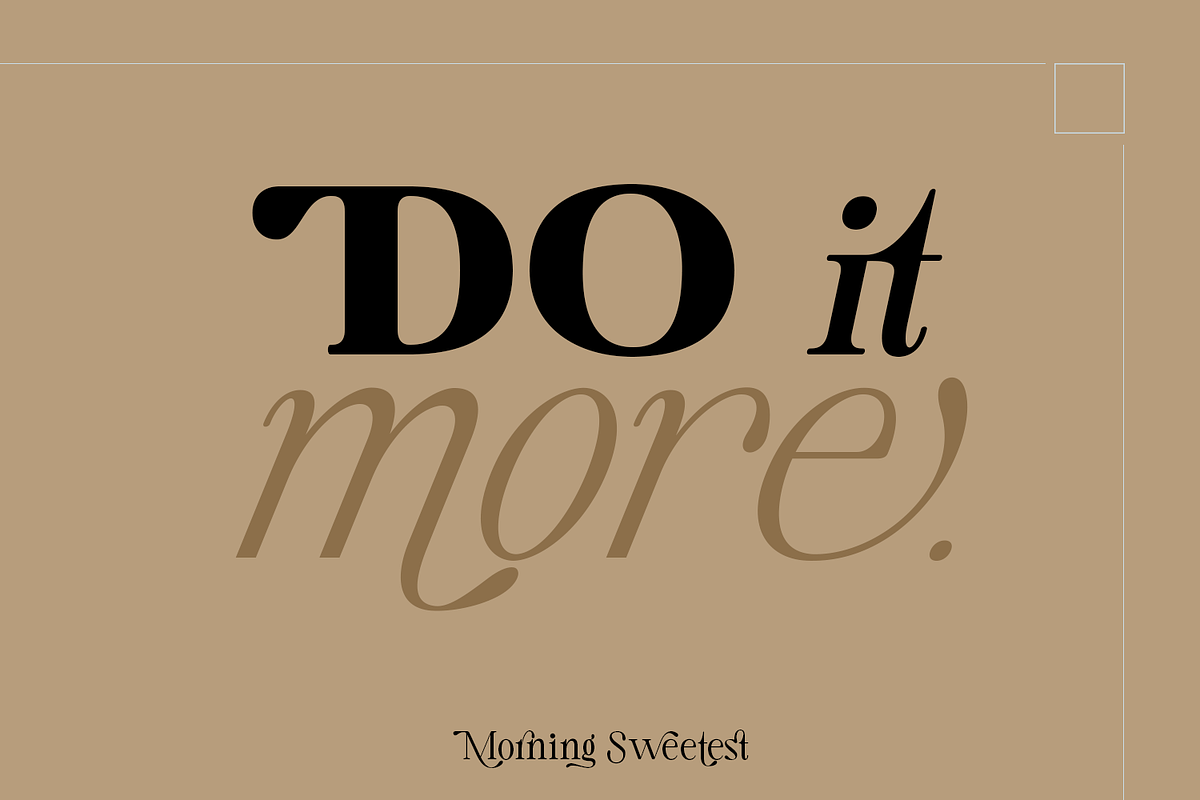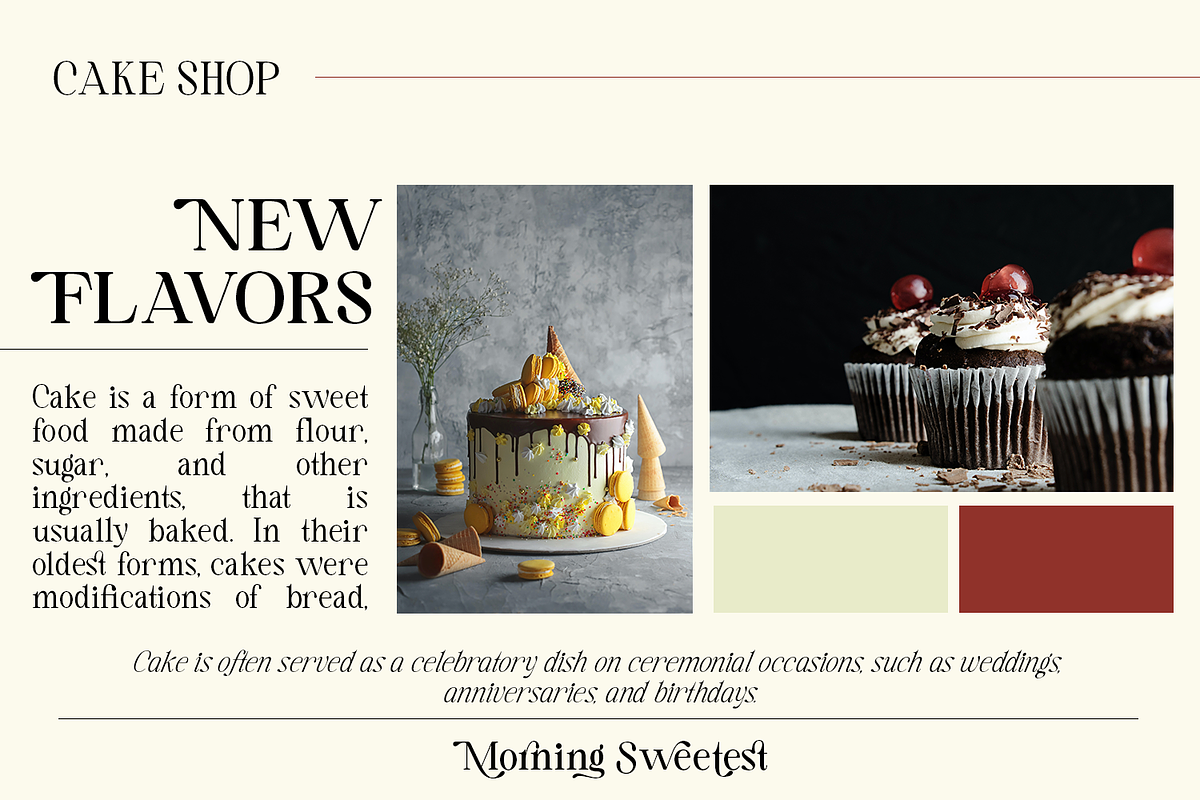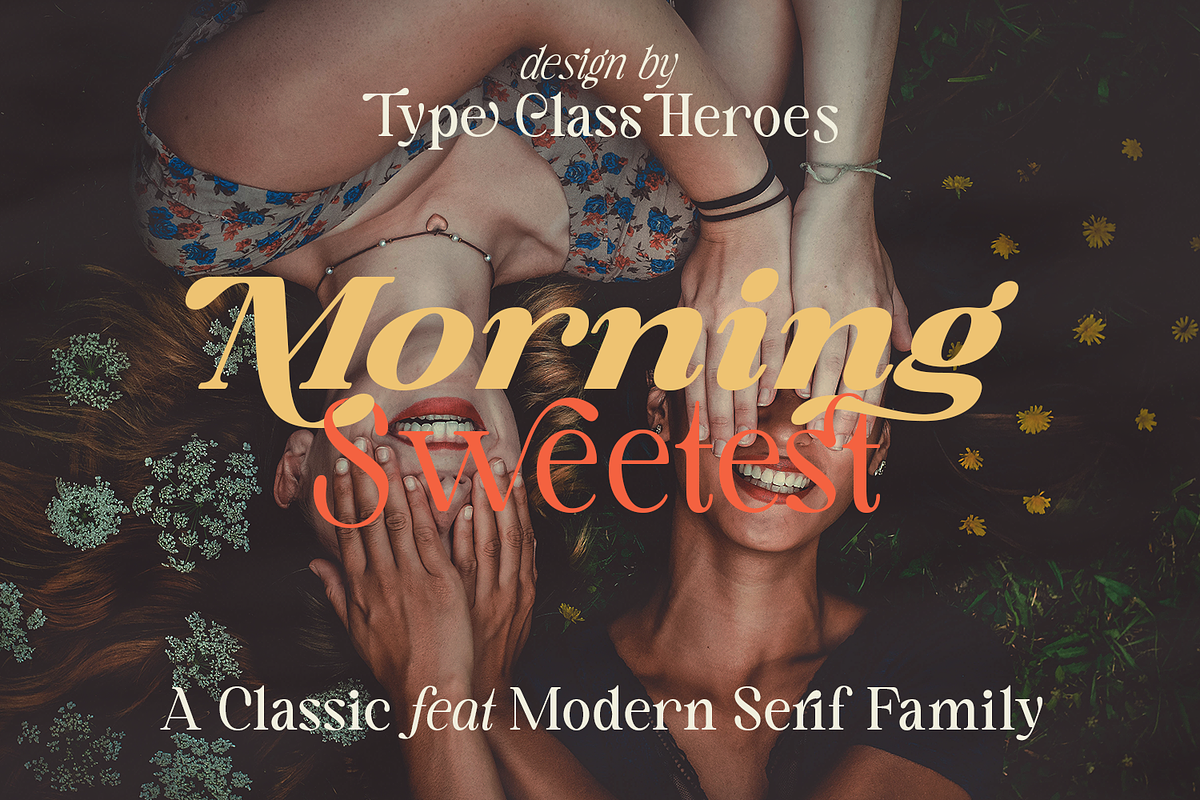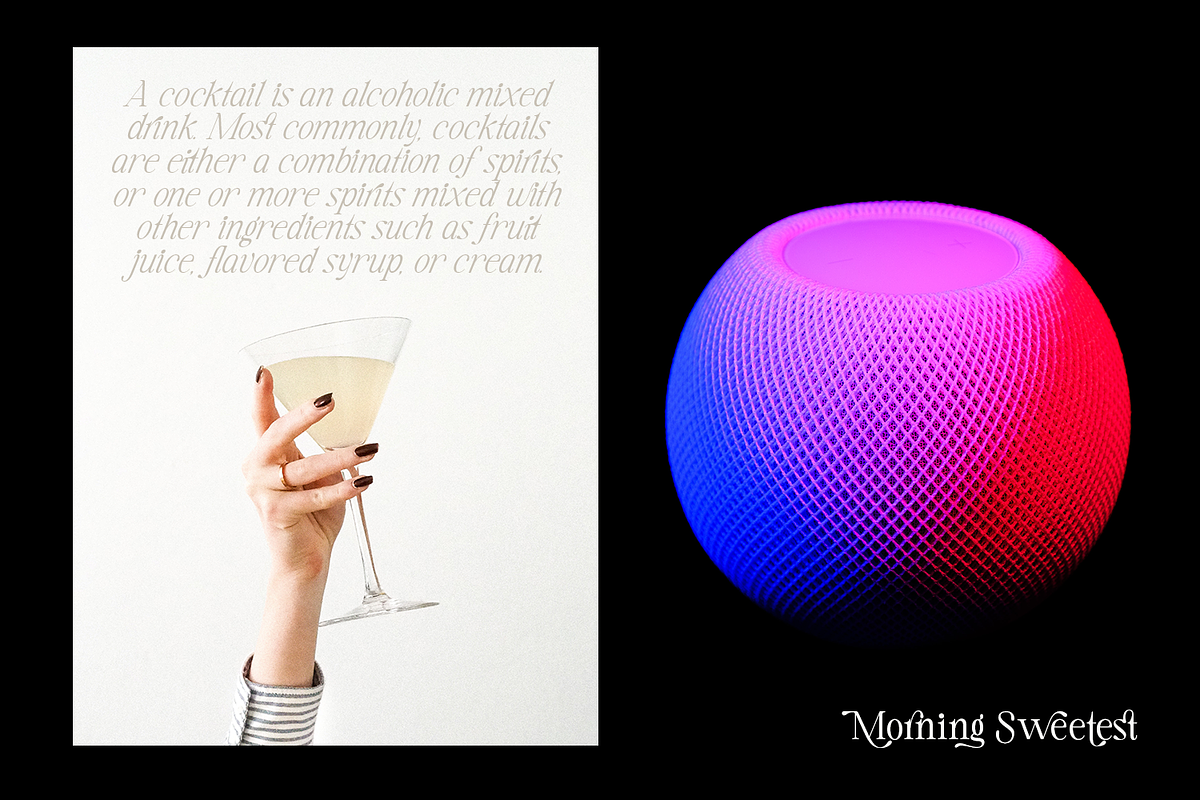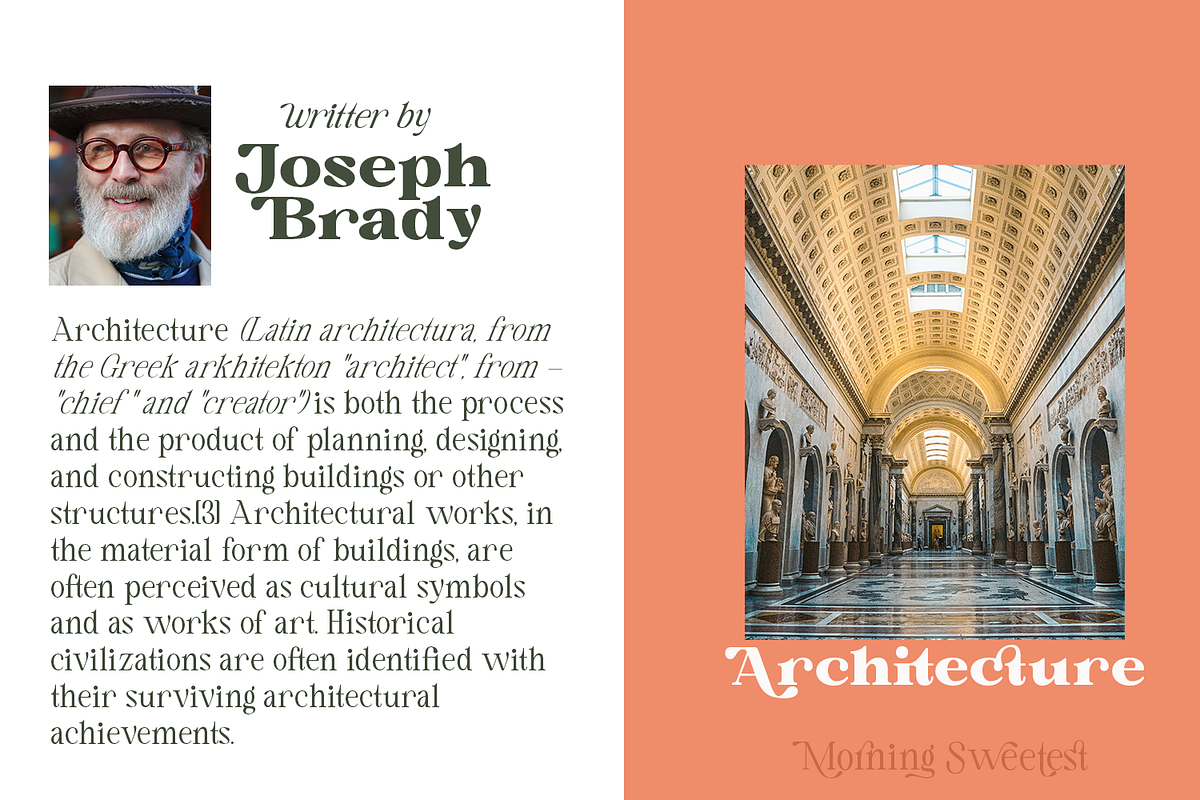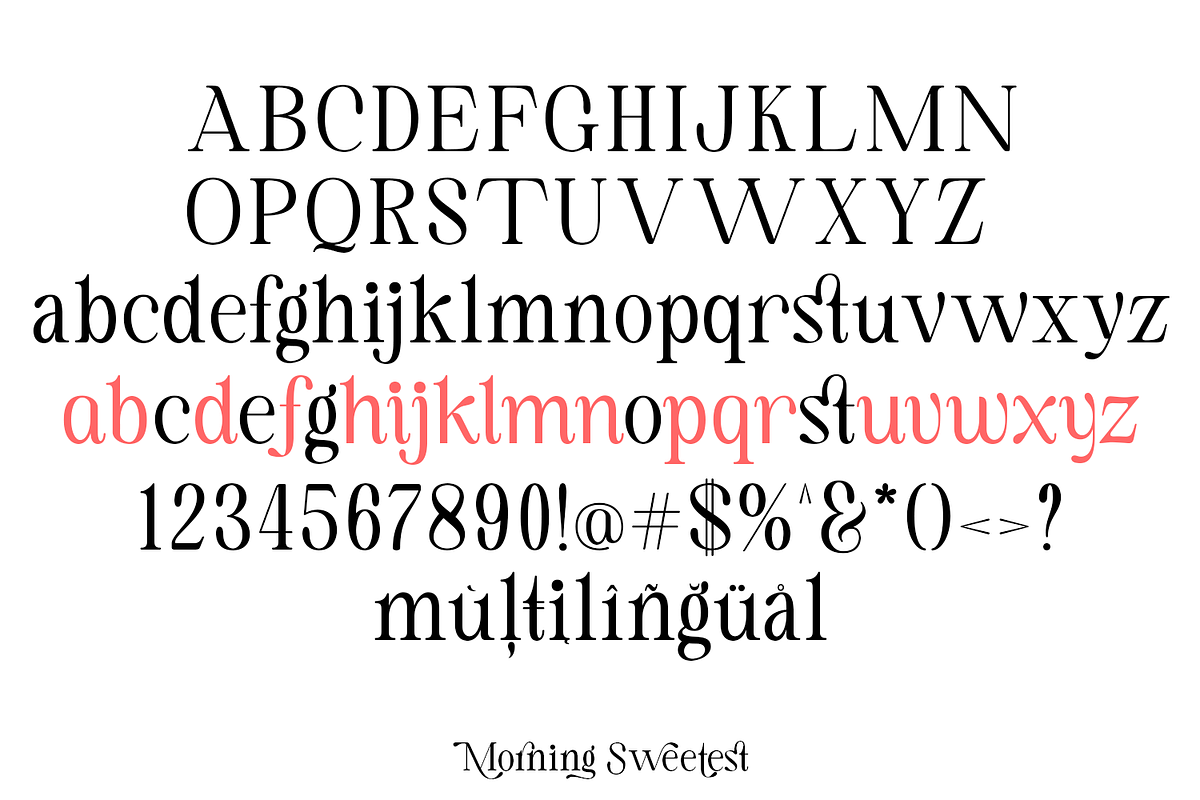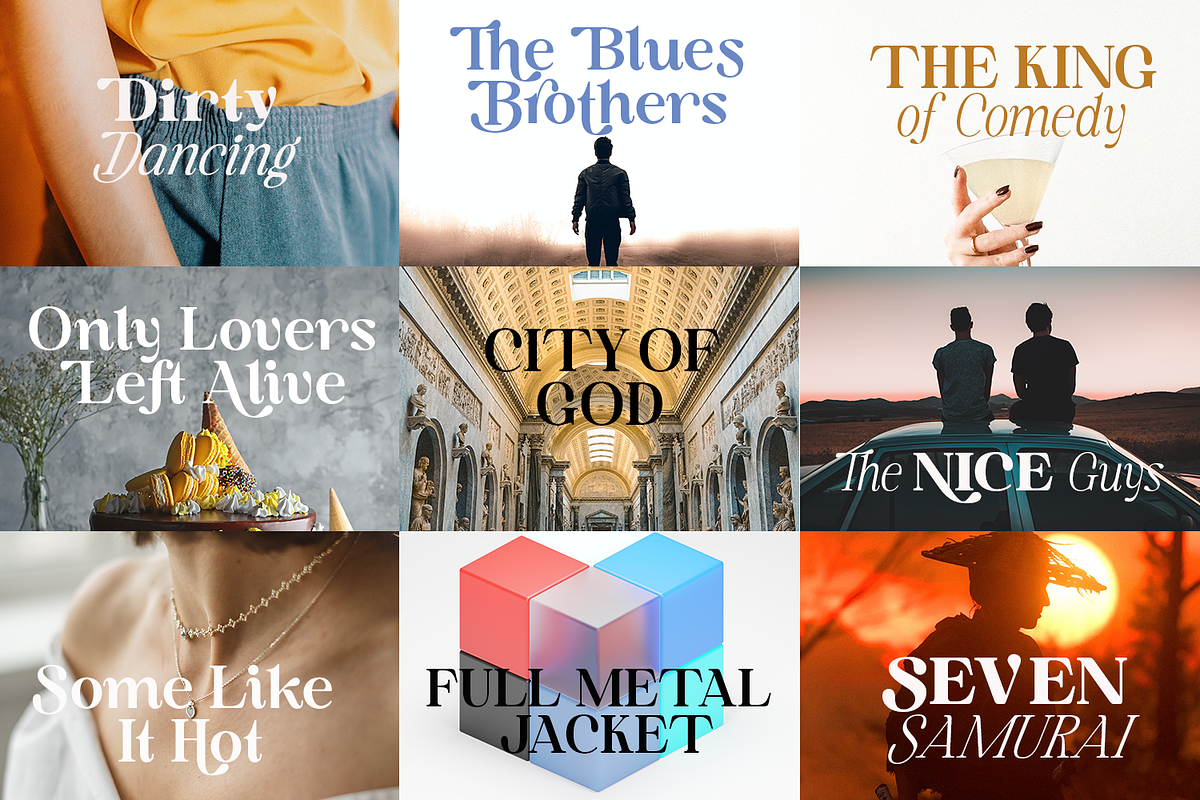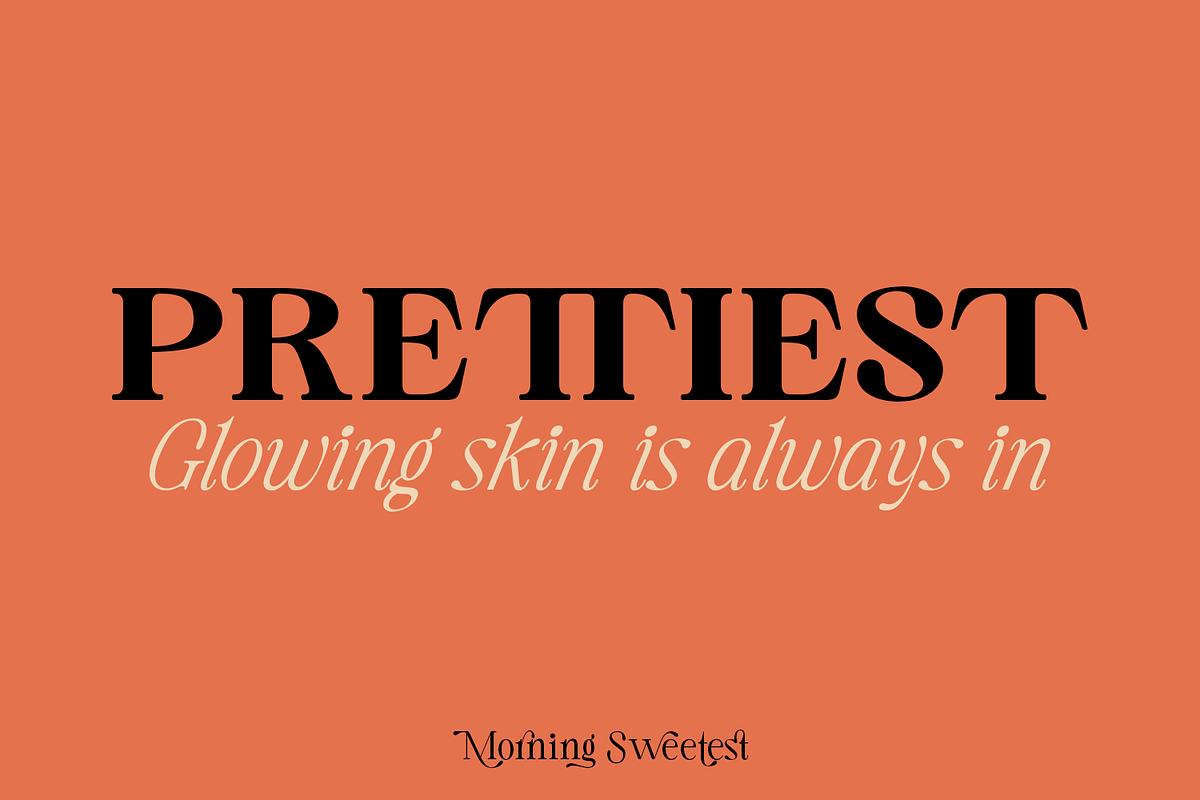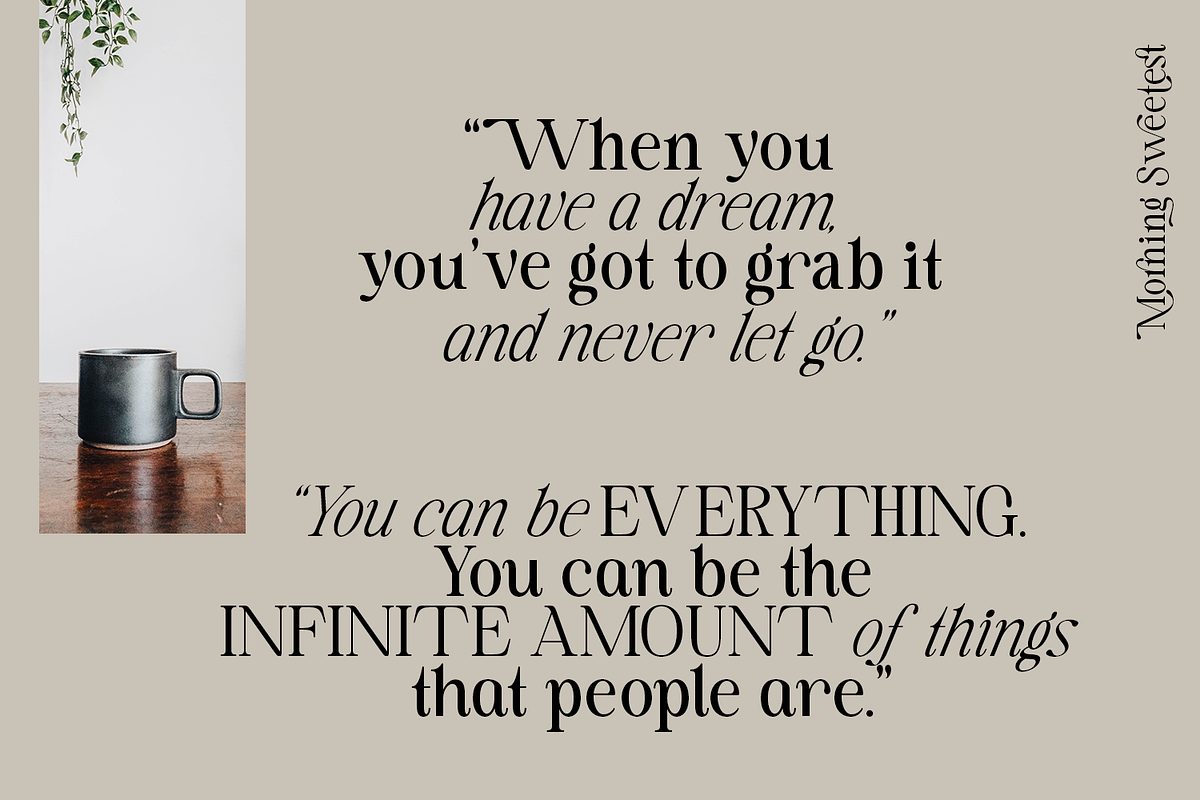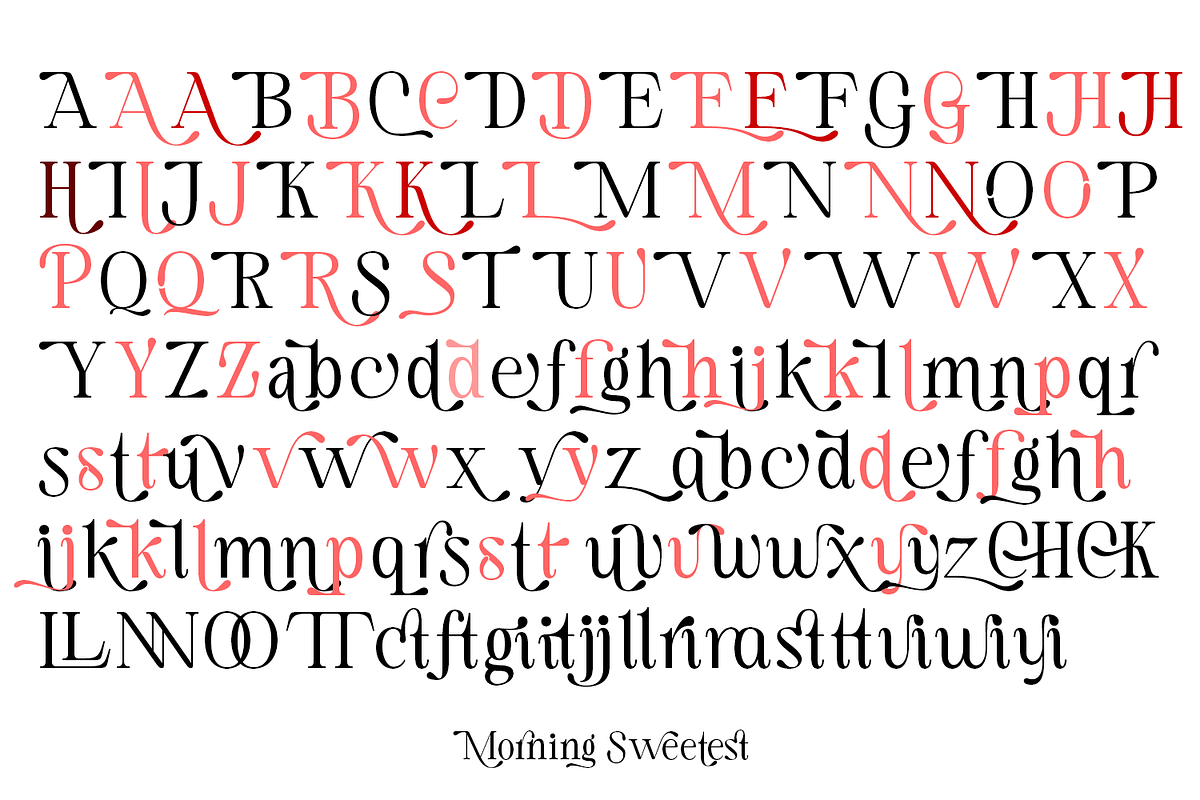
Morning Sweetest and Morning Sweetest Neue is a Classic feat Modern serif family. It's clean and smooth with 9 variable weight combining the regular and italic and much alternative inside. Suitable to create any branding, product packaging, invitation, quotes, t-shirt, label, poster, logo etc.
- International Glyphs